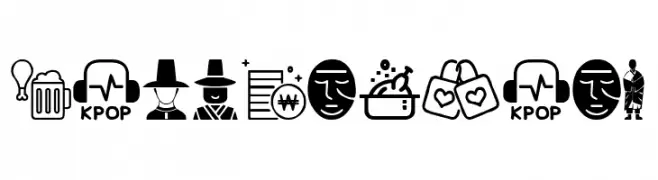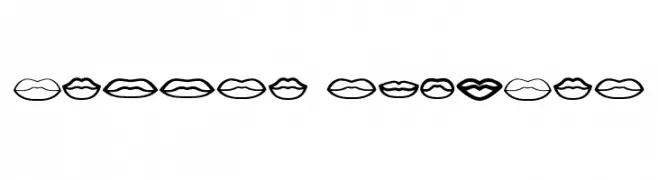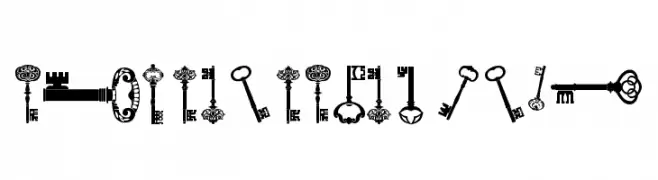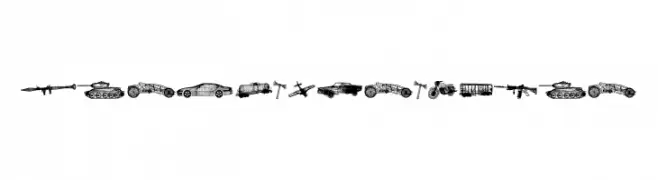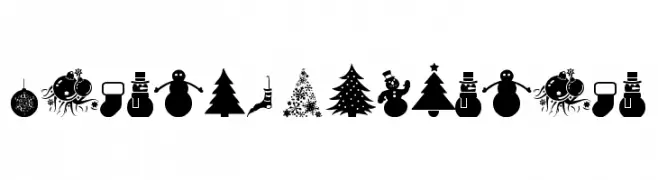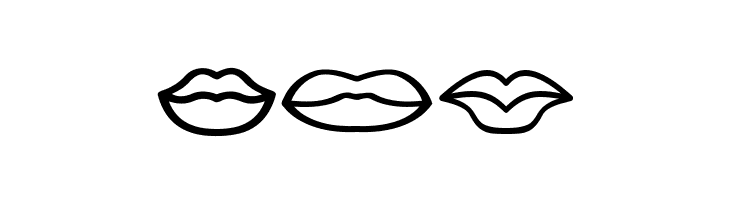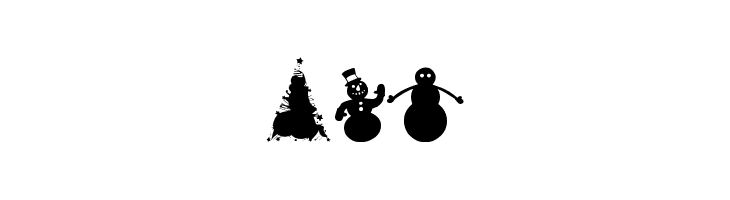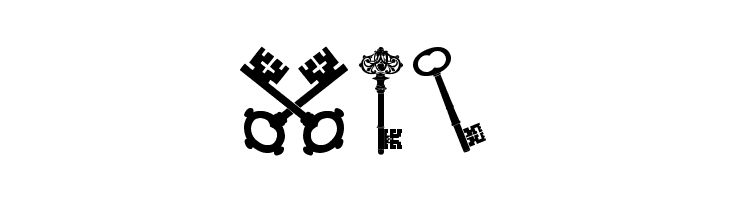
Expressive, brushstroke figures form each glyph, evoking motion and artistry.
A detailed set of war-themed icons featuring military vehicles and weapons.
Whimsical lips-themed decorative font.
A Canada-themed icon font with bold, simple pictograms.
Whimsical witch and magic-themed decorative icon font.
Ornamental geometric font with Islamic art influences.
A festive icon set with diverse Christmas motifs in a decorative style.
A decorative font featuring intricately designed vintage keys.
Korean cultural icon set in bold line-art style.
A playful collection of hand-drawn, space-themed dingbats.